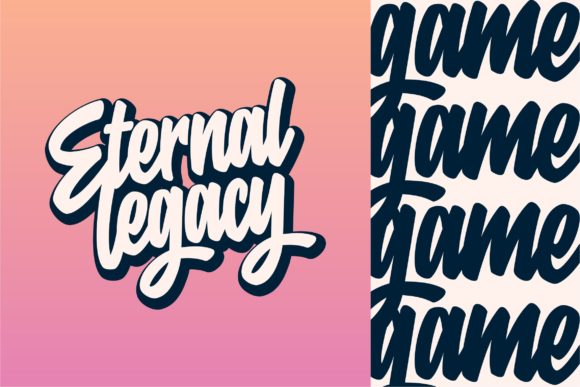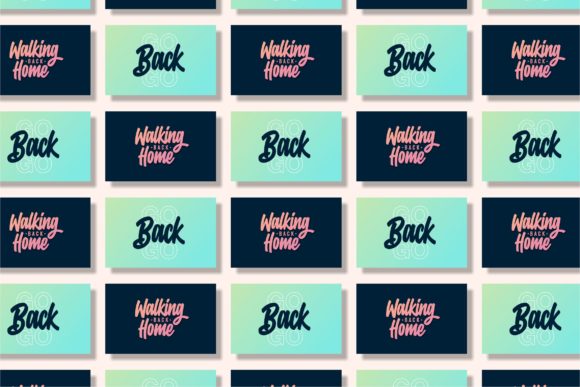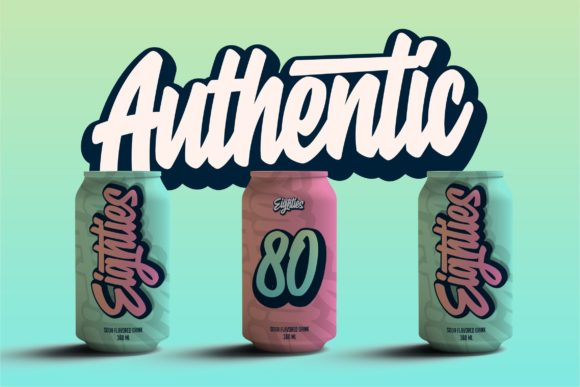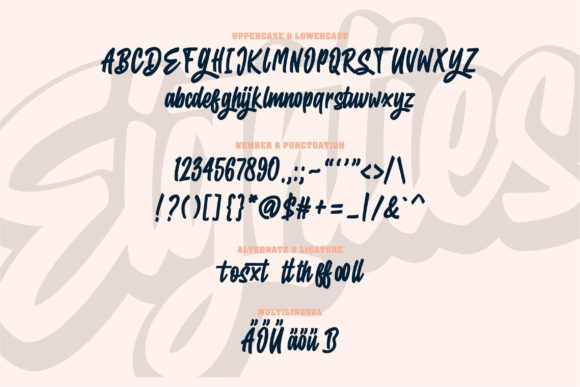
Introducing Eighties Font: The Ultimate Retro Display Font
Are you looking for a way to add a touch of nostalgia to your designs? Do you want to create something that screams retro cool? Look no further than Eighties Font, a beautiful and unique display font that’s perfect for adding a special retro touch to any design idea you can think of!
What is Eighties Font?
Eighties Font is a stunning display font that’s inspired by the iconic typography of the 1980s. With its bold lines, bright colors, and futuristic vibe, this font is sure to transport your designs back to the neon-lit decade of excess. Whether you’re a designer, crafty DIY enthusiast, or simply someone who loves the aesthetic of the eighties, this font is a must-have in your collection.
Key Features of Eighties Font
- Unique and eye-catching design: Eighties Font boasts a one-of-a-kind design that’s sure to grab attention. Its bold lines, geometric shapes, and distinctive flair make it the perfect choice for headlines, titles, and other display text.
- Retro-futuristic vibe: This font embodies the spirit of the 1980s, with its bright colors, futuristic shapes, and unmistakable swagger. Use it to add a touch of nostalgia to your designs or to create something that feels fresh and modern.
- Highly versatile: Eighties Font is perfect for a wide range of design projects, from posters and flyers to logos, branding, and even digital media. Its bold design and clear typography make it easy to read, even at small sizes.
- Easily customizable: With Eighties Font, you can easily customize your text to fit your design needs. Choose from a range of colors, sizes, and styles to create a look that’s all your own.
How to Use Eighties Font in Your Designs
Eighties Font is incredibly easy to use, even if you’re new to design or typography. Here are a few ideas to get you started:
- Create a retro-style poster: Use Eighties Font to create a bold, eye-catching poster that screams retro cool. Add some bright colors, geometric shapes, and a dash of nostalgia to create a design that’s sure to turn heads.
- Add a touch of eighties flair to your branding: Give your brand a retro makeover with Eighties Font. Use it to create a bold logo, craft a catchy tagline, or add some visual interest to your packaging.
- Make a statement with your social media graphics: Stand out on social media with Eighties Font. Use it to create bold, eye-catching graphics that showcase your personality and style.
Tips and Tricks for Getting the Most Out of Eighties Font
Here are a few tips and tricks to help you get the most out of Eighties Font:
- Experiment with colors: Eighties Font is all about bright colors and bold contrasts. Don’t be afraid to experiment with different color schemes to find the perfect combination for your design.
- Mix and match with other fonts: Eighties Font is a bold display font, but it can also be paired with other fonts to create a unique look. Try combining it with a sans-serif font for a modern contrast or a script font for added elegance.
- Pay attention to spacing and alignment: As with any font, it’s essential to pay attention to spacing and alignment when using Eighties Font. Make sure to leave enough room between letters and words to create a clean, easy-to-read design.
Eighties Font is a unique and beautiful display font that’s perfect for adding a touch of retro flair to any design project. With its bold lines, bright colors, and futuristic vibe, this font is sure to transport your designs back to the iconic decade of the 1980s. Whether you’re a designer, crafty DIY enthusiast, or simply someone who loves the aesthetic of the eighties, Eighties Font is a must-have in your collection. So why wait? Download Eighties Font today and start creating your own retro-inspired designs!